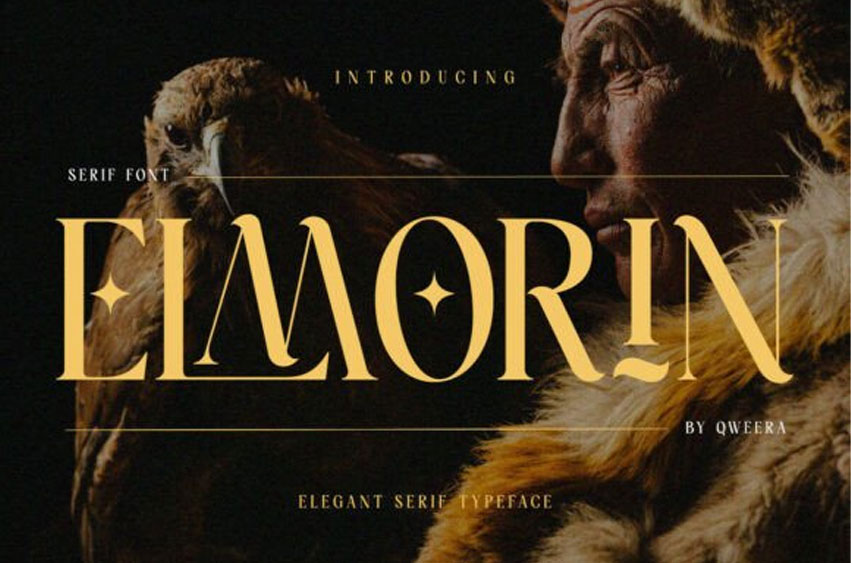
Elmorin Font
Elmorin Font is a refined serif font that blends traditional charm with contemporary finesse. Inspired by timeless editorial typography and classic Roman proportions, Elmorin delivers a strong visual identity and subtle ornamental flair—perfect for storytelling brands, luxury packaging, and stylish editorial layouts.
From medieval echoes to modern elegance, Elmorin breathes character into your typography. A perfect fusion of old-world charm and modern aesthetics, made to tell stories with strength and grace.